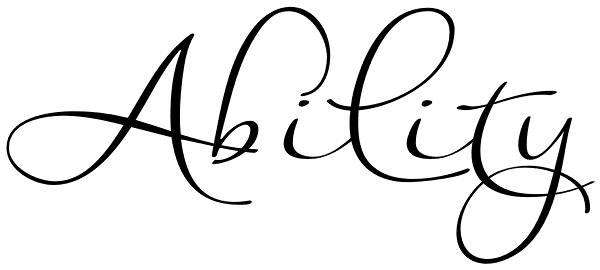
Ability
Ability is a family of stylish and contemporary handwriting fonts that combine the vigor of hand-drawn fonts such as Affable with the elegance of fonts such as Blythe. What is unusual about Ability is that it enables a word to be formed from a group...